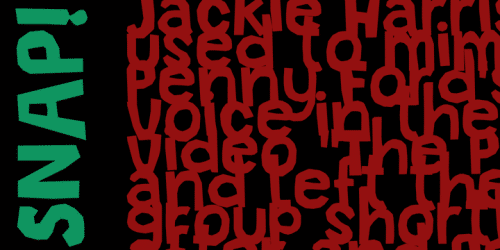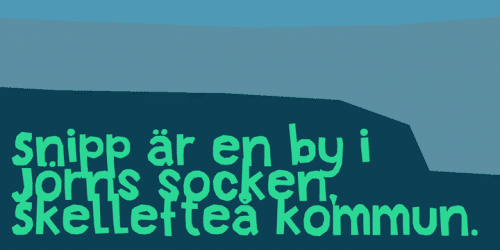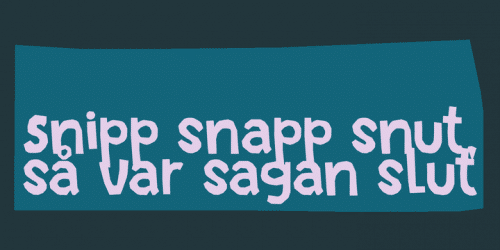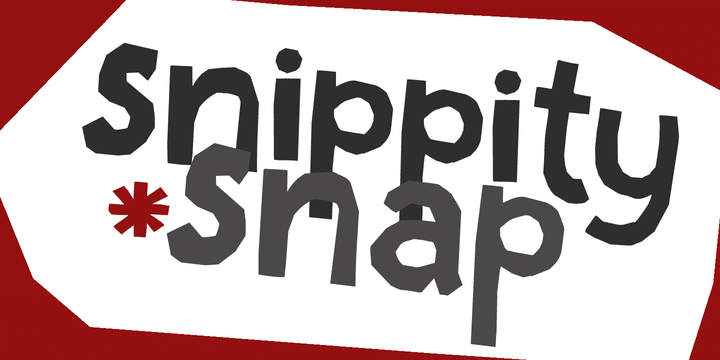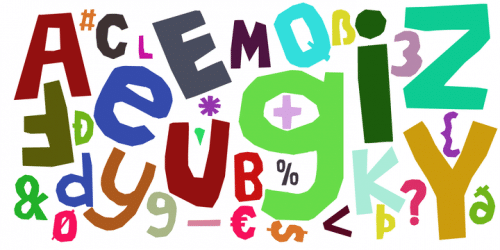
Snippity Snap is a font made up of glyphs I cut out from black paper with some household scissors, then pasted onto white paper.
When I was cutting out the shapes, my children asked me what I was doing, and when I told them, they thought it was pretty cool and started cutting out shapes from paper themselves. The result is a house filled with paper cuttings, which I keep finding everywhere – even in my bed.